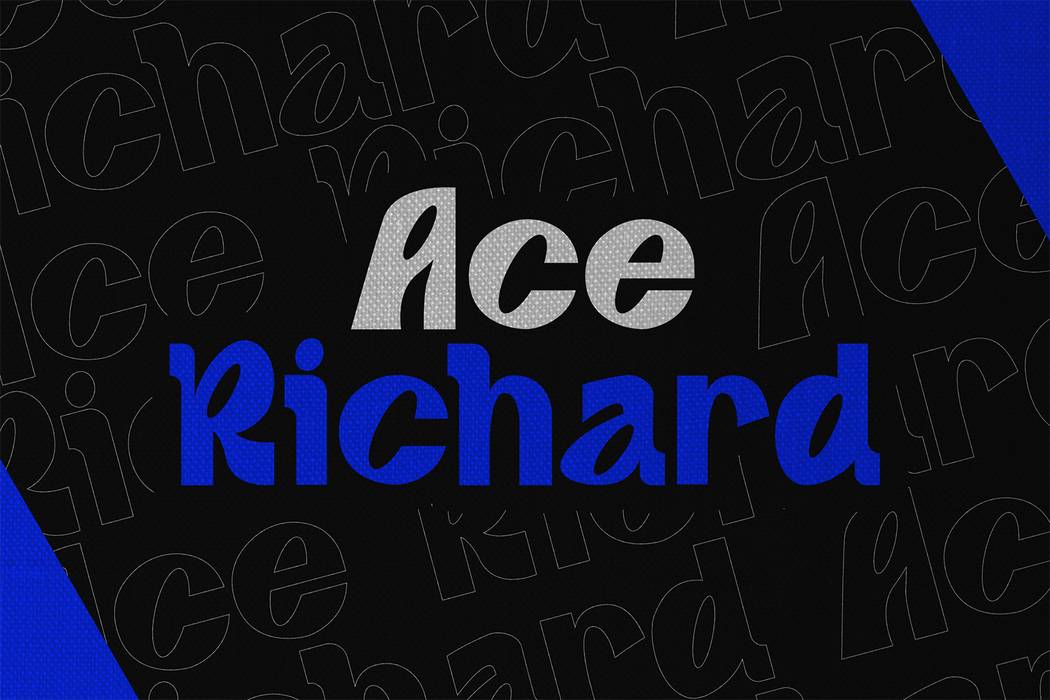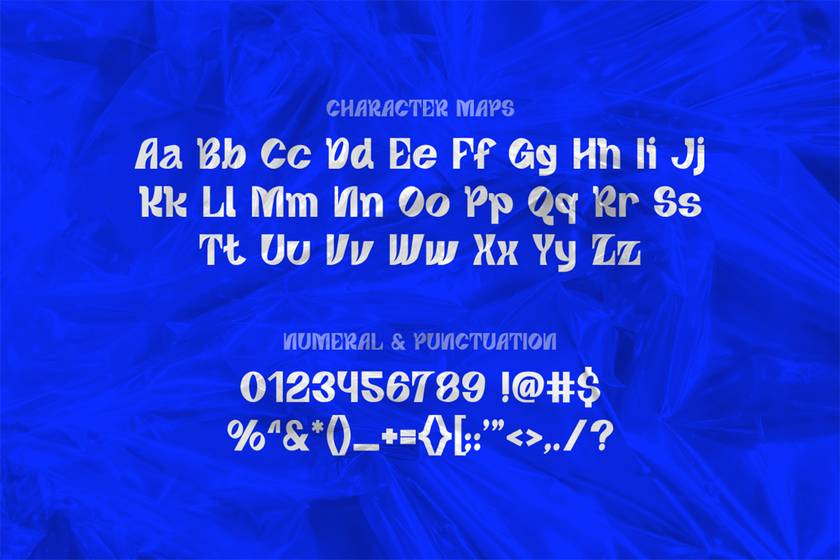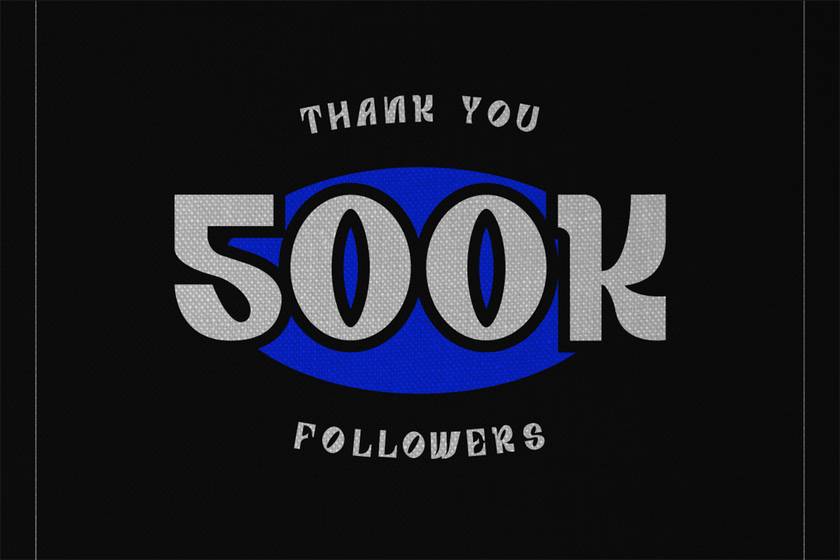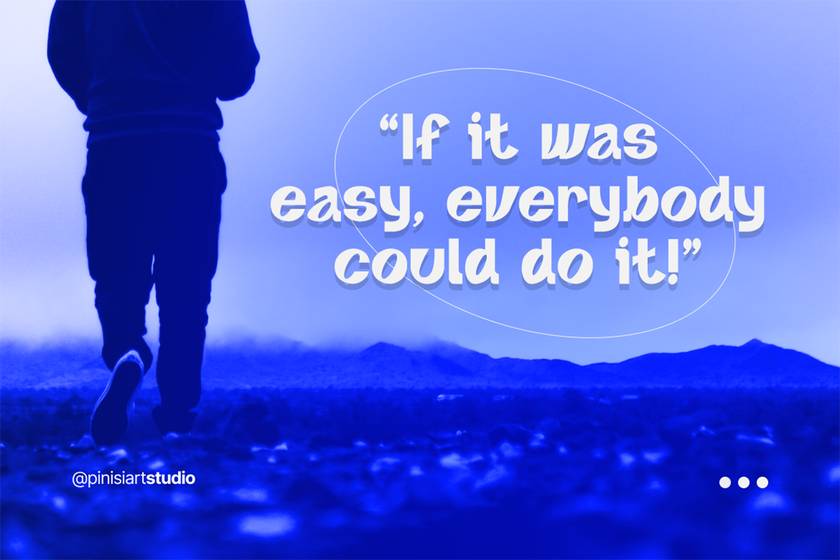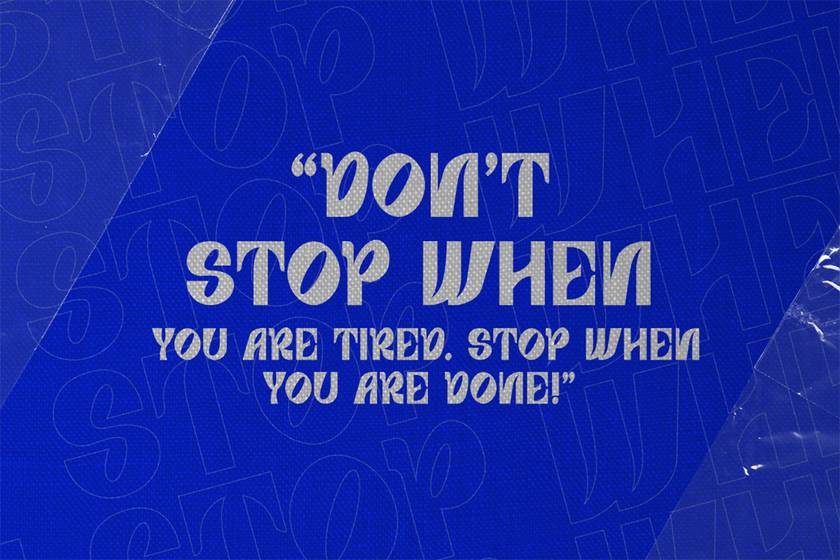
Ace Richard is a bold and distinctive serif font with a vintage flair, featuring high contrast strokes and unique, stylized letterforms that blend sharp angles with smooth curves. Its strong personality and playful yet elegant design make it ideal for logos, posters, and branding projects looking to convey creativity and a retro-modern vibe. This font stands out in headlines and display uses where a memorable and artistic impression is desired.
Ace Richard Font
About Ace Richard Font